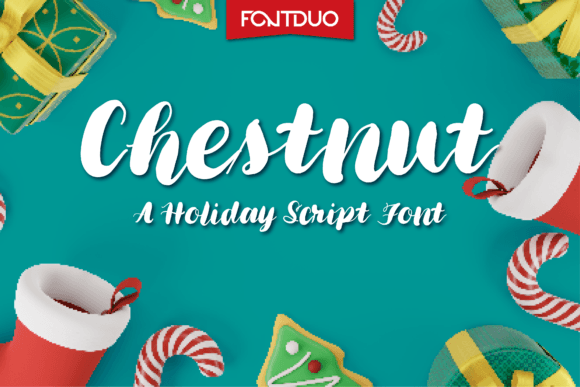
Introduction to Chestnut Font
Chestnut is a charming and festive handwritten script font.
Masterfully designed to become a true favorite, this font has the potential to bring each of your creative ideas to the highest level .
Key Features of Chestnut Font
Why Choose Chestnut Font?
Chestnut Font offers exceptional quality and versatility, making it a valuable addition to your design toolkit. Whether you’re creating for personal projects or commercial use, Chestnut Font delivers professional results.